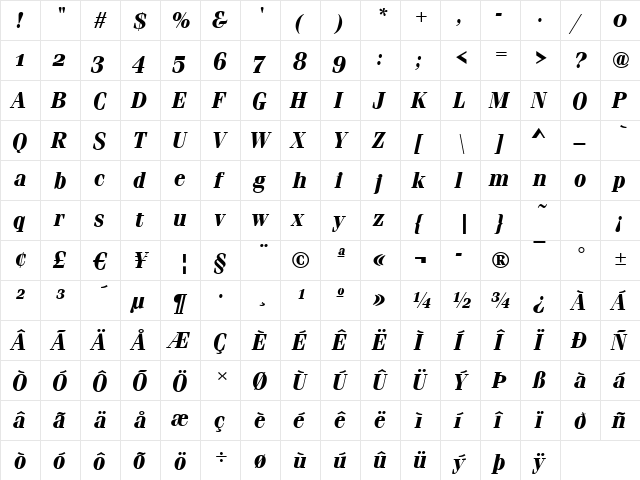
Ferrara-Osf BoldItalic Font Preview
Design Context for Ferrara-Osf Typeface
Ferrara-Osf takes a measured approach to typography — its balanced proportions and neutral character make it a reliable workhorse for both digital and print work. The slanted form adds forward momentum and visual energy. The heavy weight commands attention and anchors typographic hierarchies.